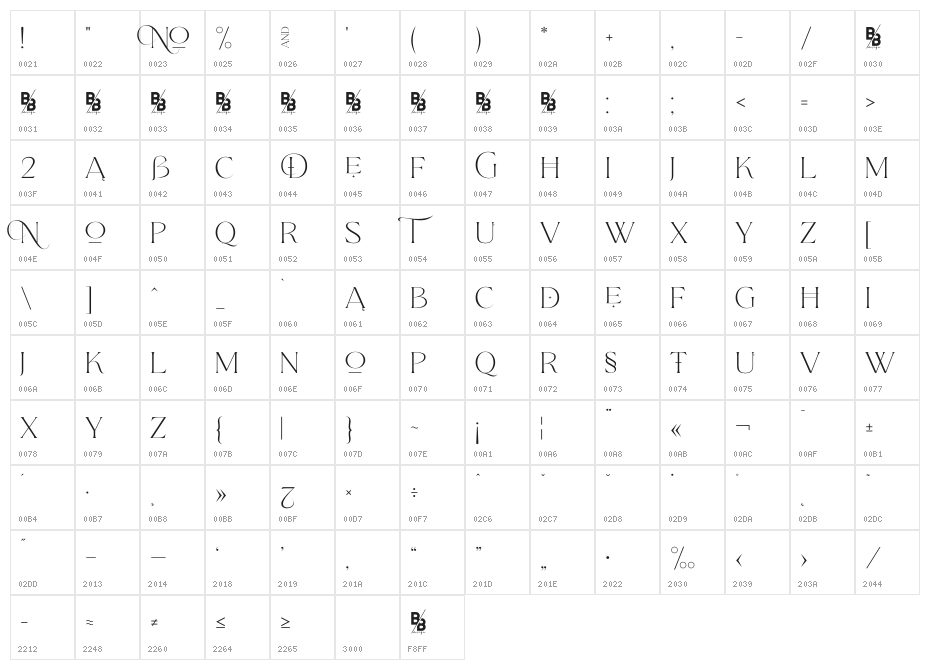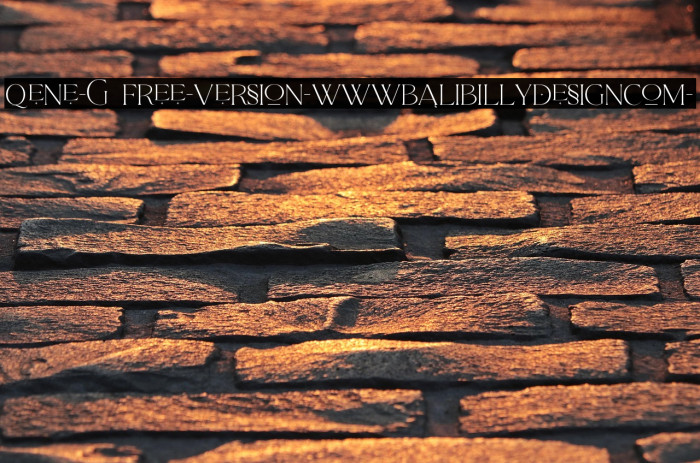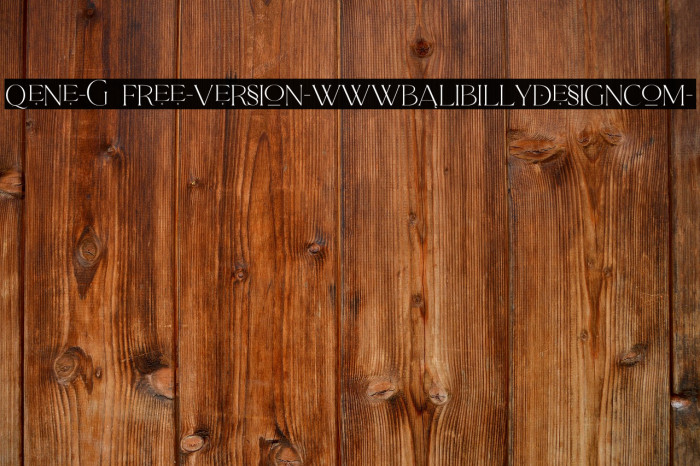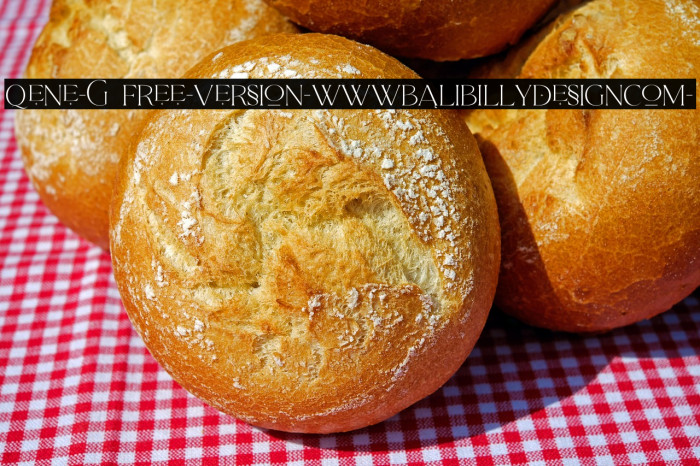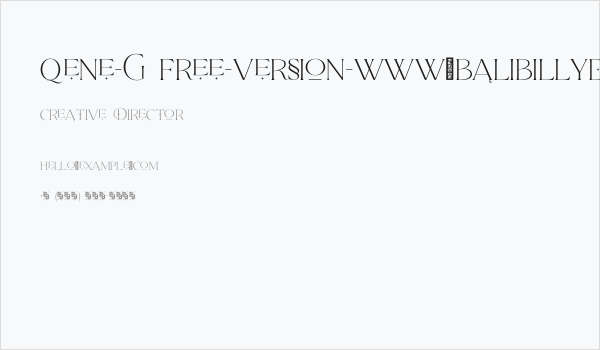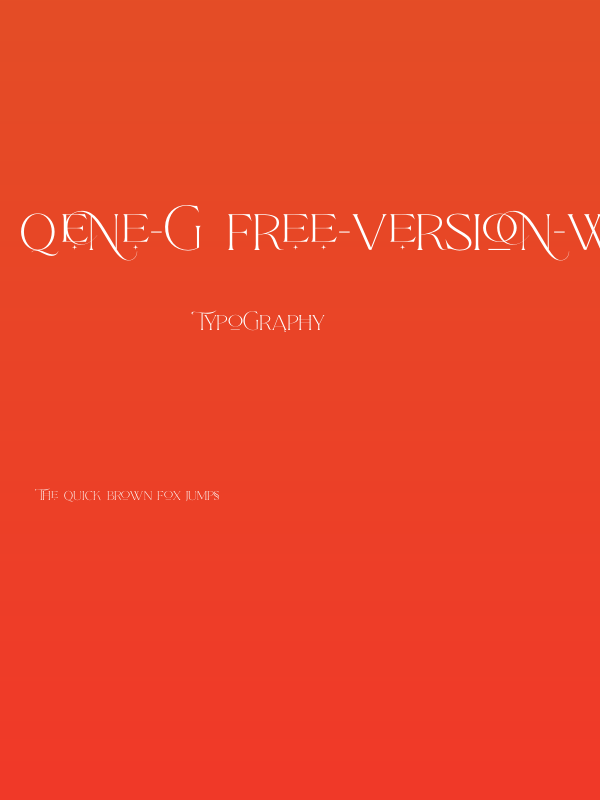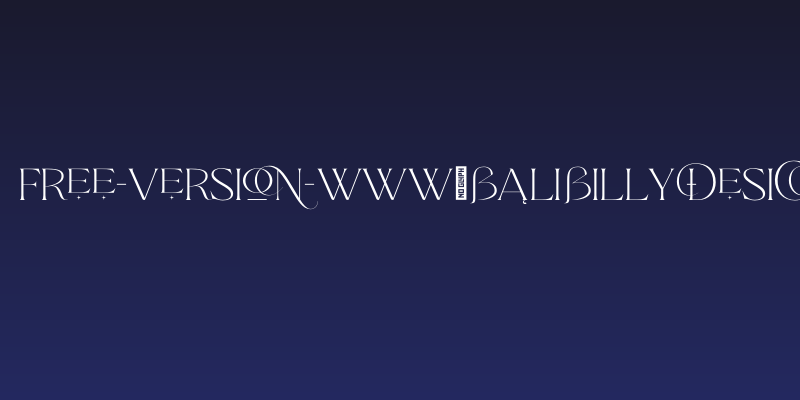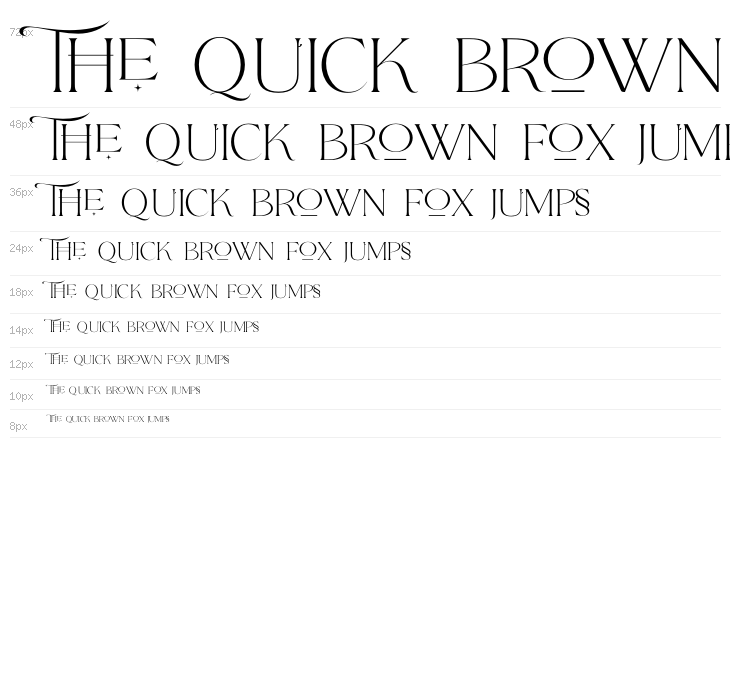
Qene-G FREE-Version-www.balibillydesign.com- Font
Qene-G FREE-Version-www.balibillydesign.com- Description
This font features a unique and artistic design, characterized by its elegant and elongated letterforms. The uppercase letters are adorned with subtle decorative elements, such as small stars and flourishes, adding a touch of sophistication and creativity. The lowercase letters maintain a consistent style, complementing the uppercase with their sleek and modern appearance. The numerals and special characters are designed to match the overall aesthetic, ensuring a cohesive look across all text. The font's thin strokes and high contrast between thick and thin lines give it a refined and stylish appearance, making it suitable for a variety of design projects.